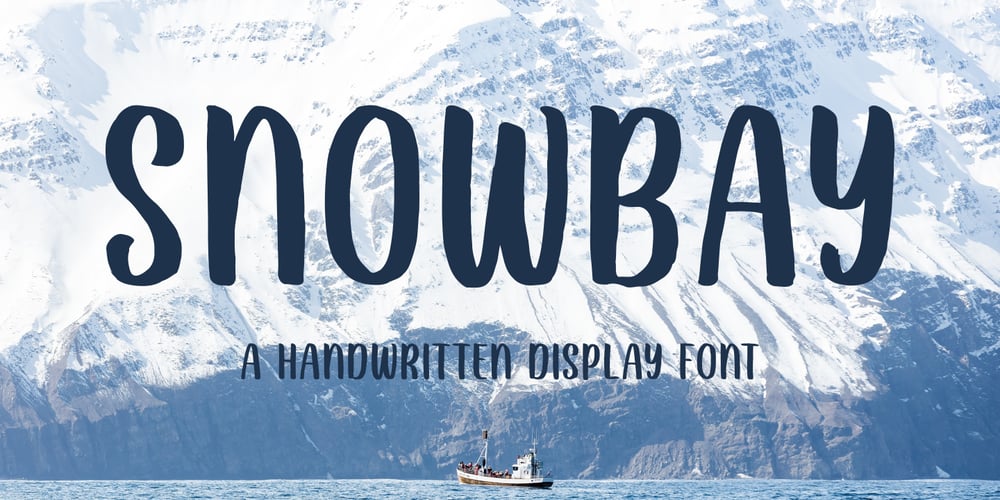
Snowbay Font Family was designed by Faja Abdul Fatah and published by Sibelumpagi. Snowbay contains 1 styles and family package options. Snowbay is a playful handwritten typeface with a rough and natural style of the brush lettering. It comes with the all-caps glyph and multilingual support. Snowbay is perfect for many different projects such as logos & branding, invitation, stationery, wedding designs, social media posts, advertisements, product packaging, product designs, label, photography, watermark, special events or anything.